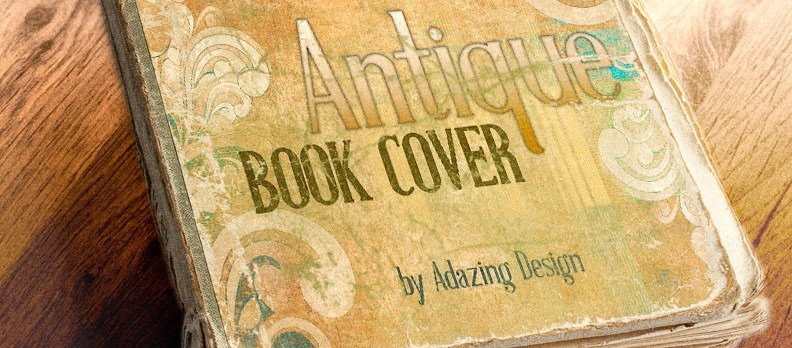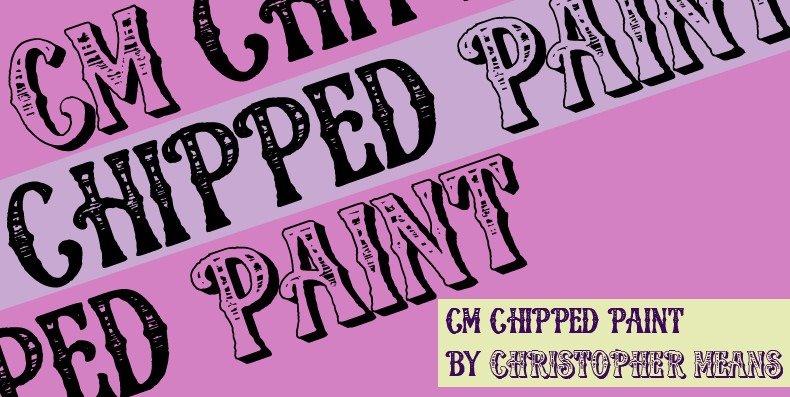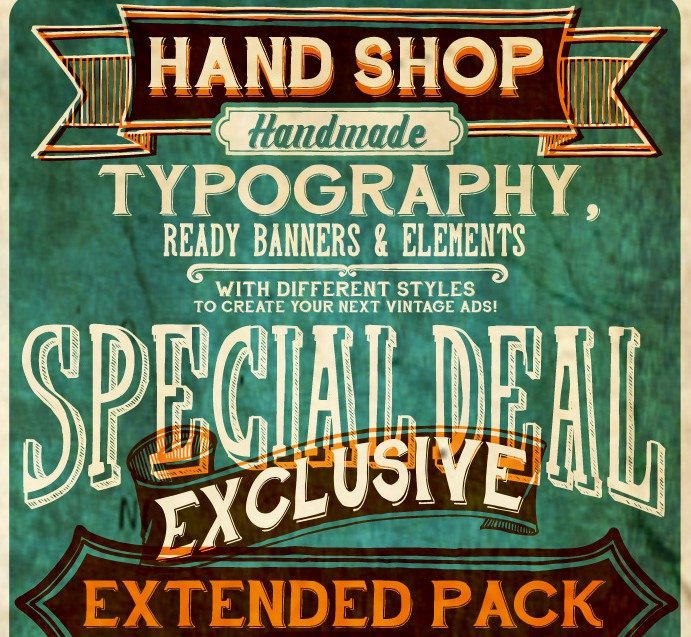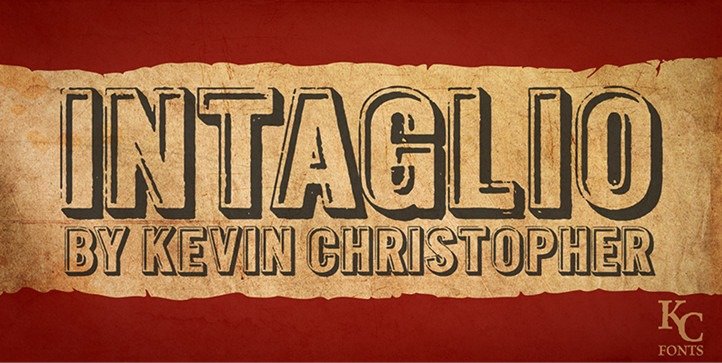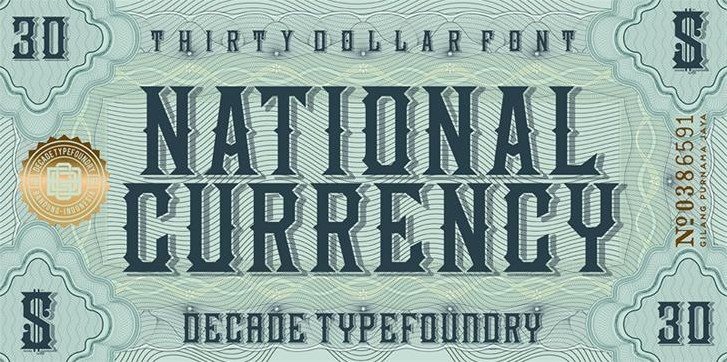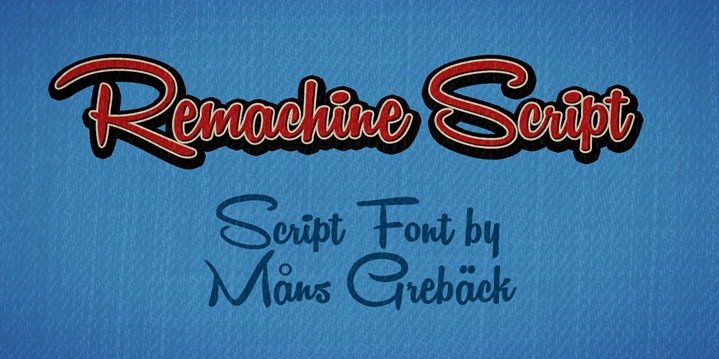
Remachine Script – MORE INFO
This non-commercial typography is one of the most downloaded free retro fonts online due to its simplicity and elegance. This kind of font has seen in different sites with vintage themes.
National Currency Font – MORE INFO
This vintage font was inspired from the letterings and typography found on several old stock certificates produced in the 19th century. Moreover, it comes with two guilloche borders.
Handshop Typography C30 – MORE INFO
This 50’s font-inspired typography was often coined in several advertisement posters in 19th century. It features uppercase fonts with different shades and style. It is intended for personal use only.
Antique Book Cover – MORE INFO
Antique Book Cover typography presents narrow fonts (both upper cases and lower cases), which stylized as formal letterings commonly used in book pages and title covers.
CM Chipped Paint – MORE INFO
CM Chipped Paint features astounding fonts and characters inspired from the late 90s. It presents outlined and bold fonts and characters, which resembles from the letterings we see in various bars.
Intaglio – MORE INFO
Intaglio is an uppercase typography that features outlined letters and characters inspired from 1960s to 70s. This can be a great font and lettering typography to use in websites.